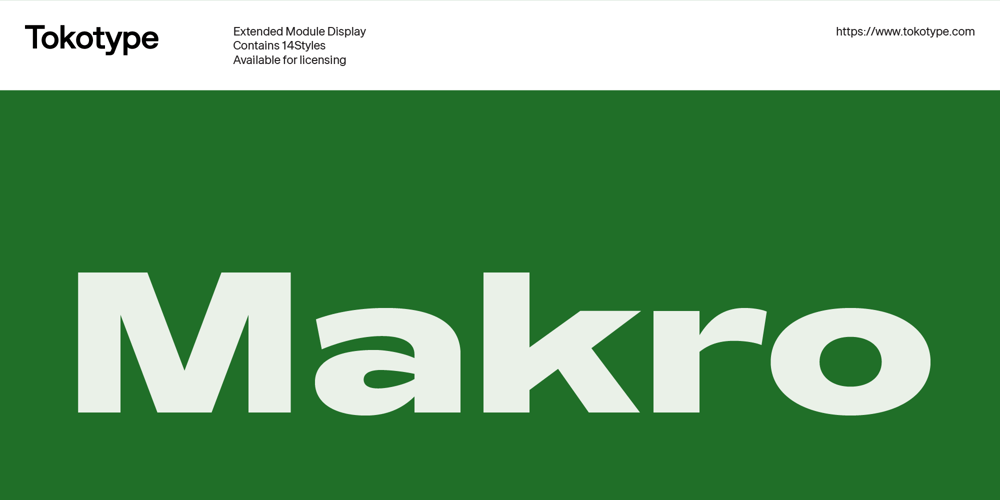
Makro Font Family was designed by Gumpita Rahayu and published by Tokotype. Makro contains 14 styles and family package options. Makro is a family of extended display sans fonts with an imposing profile with six weights, ranging from Light to Black. This series is distinguished by the excessively contrasting shapes and tones of the shapes on each opening joint and adjusted open counter.This font was designed primarily for large display text that demands more space, such as on out-of-home graphics, headings, titles, or another similar application. The most recent version of Makro supports variable weight and italic axes, as well as OpenType features such as alternatives, circled numbers, etc. In addition, the family has enlarged its linguistic repertoire to incorporate Cyrillic in addition to Latin.